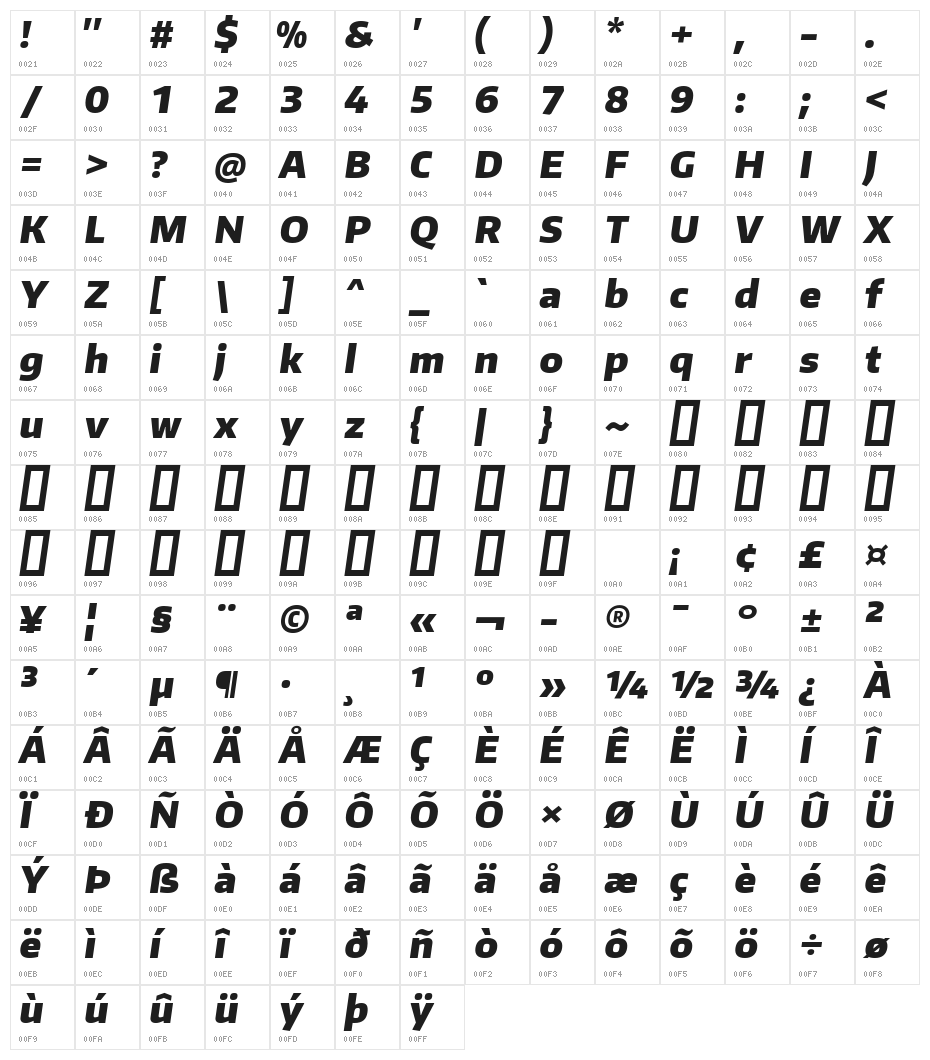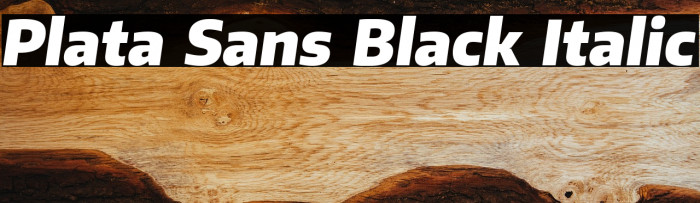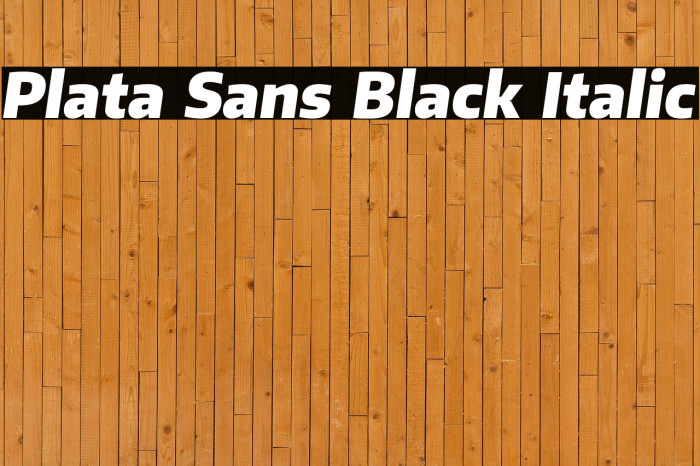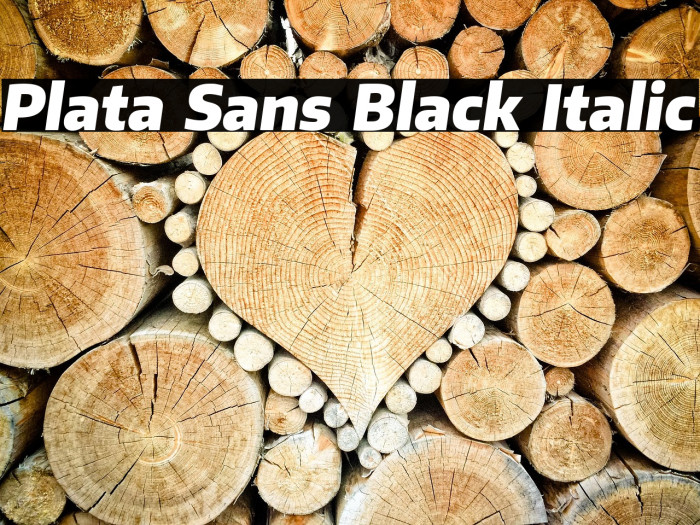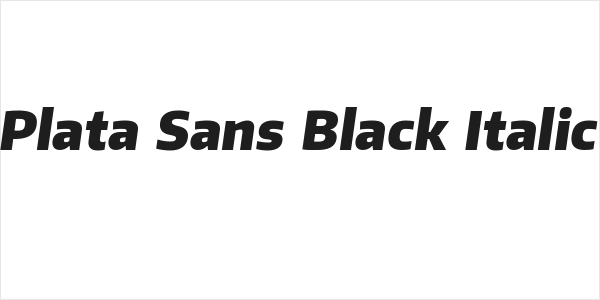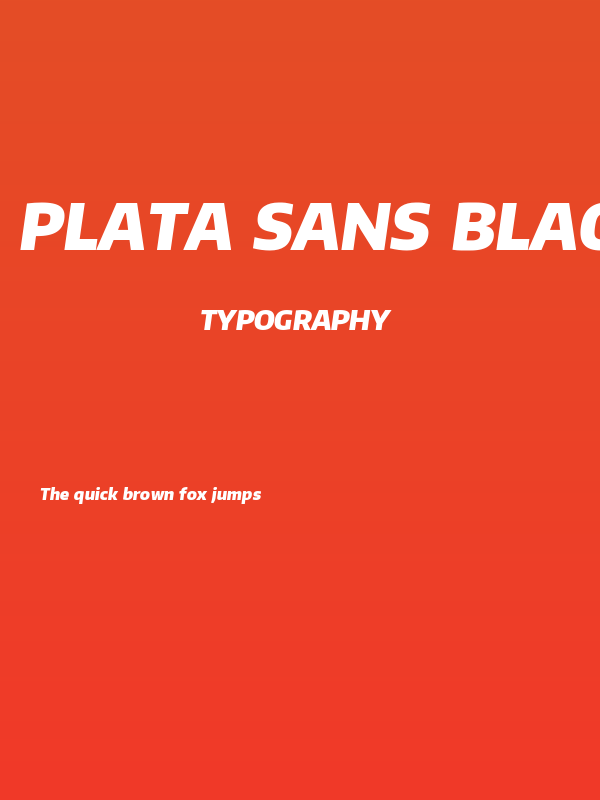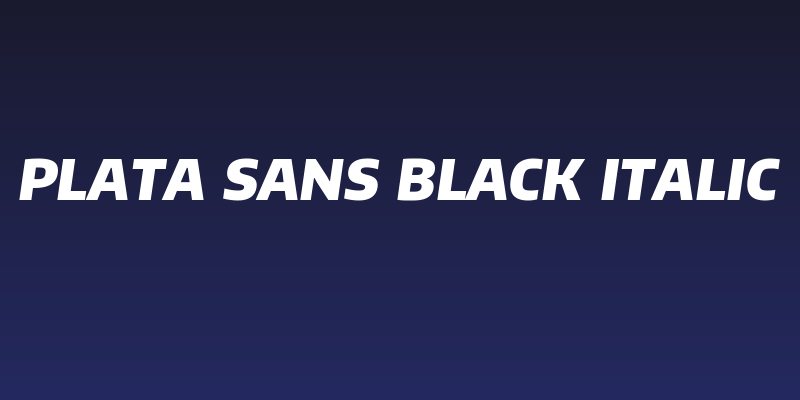
Plata Sans Black Italic Font
Plata Sans Black Italic Description
This font features a bold and dynamic sans-serif style with a noticeable italic slant, giving it a sense of movement and modernity. The characters are robust and well-defined, with a consistent stroke weight that emphasizes clarity and readability. The uppercase and lowercase letters maintain a uniform appearance, while the numerals and special characters are designed to complement the overall aesthetic. The font's boldness and italic nature make it suitable for impactful headlines and attention-grabbing designs.
| Use Case | Headlines, Logos, Advertising |
| Proposed Projects | Ideal for branding, advertising, headlines, and digital media where a strong and modern impression is desired. |